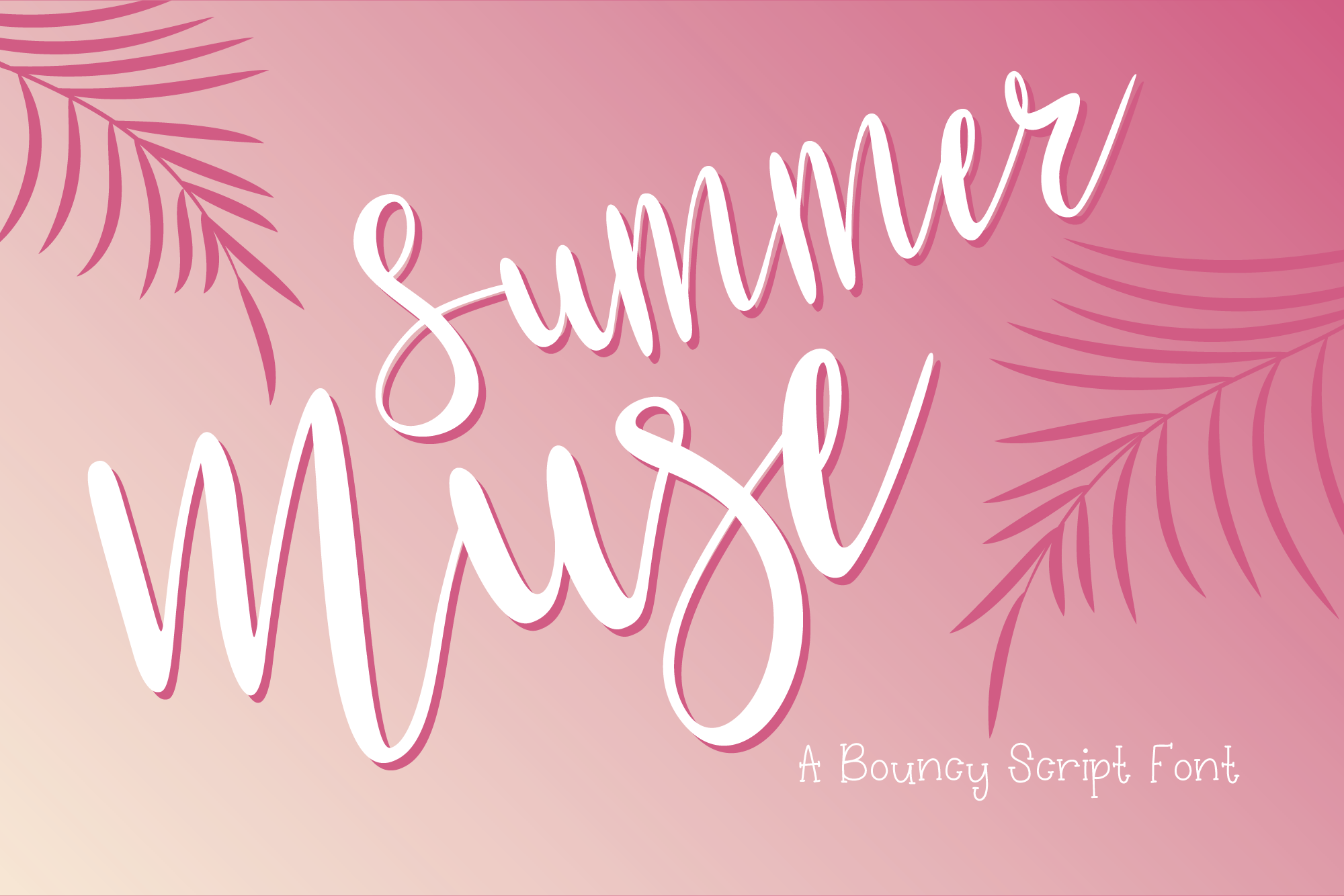
Summer Muse Cursive Script Font
A bouncy feminine script font.
Summer Muse is a feminine calligraphy font with a fun & bouncy design. Perfect for a wide range of styles and applications such as logo design, wedding invitations, business branding, & web design.